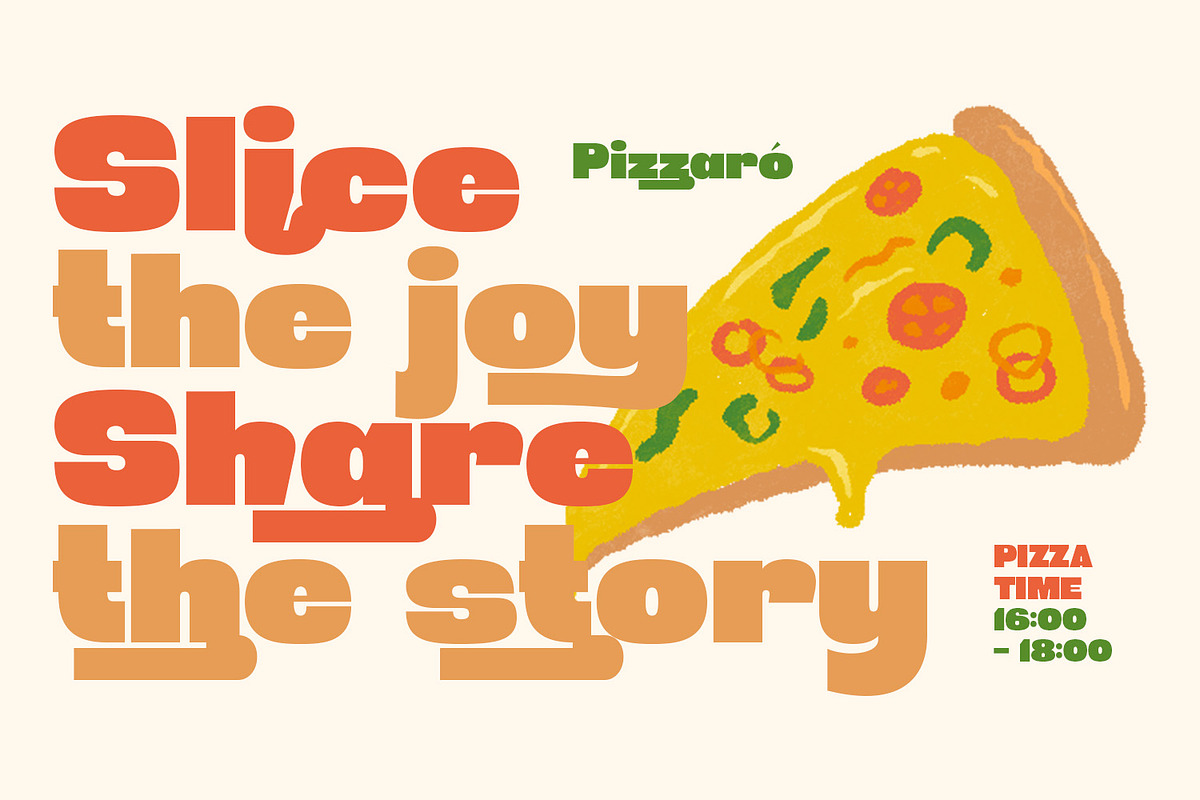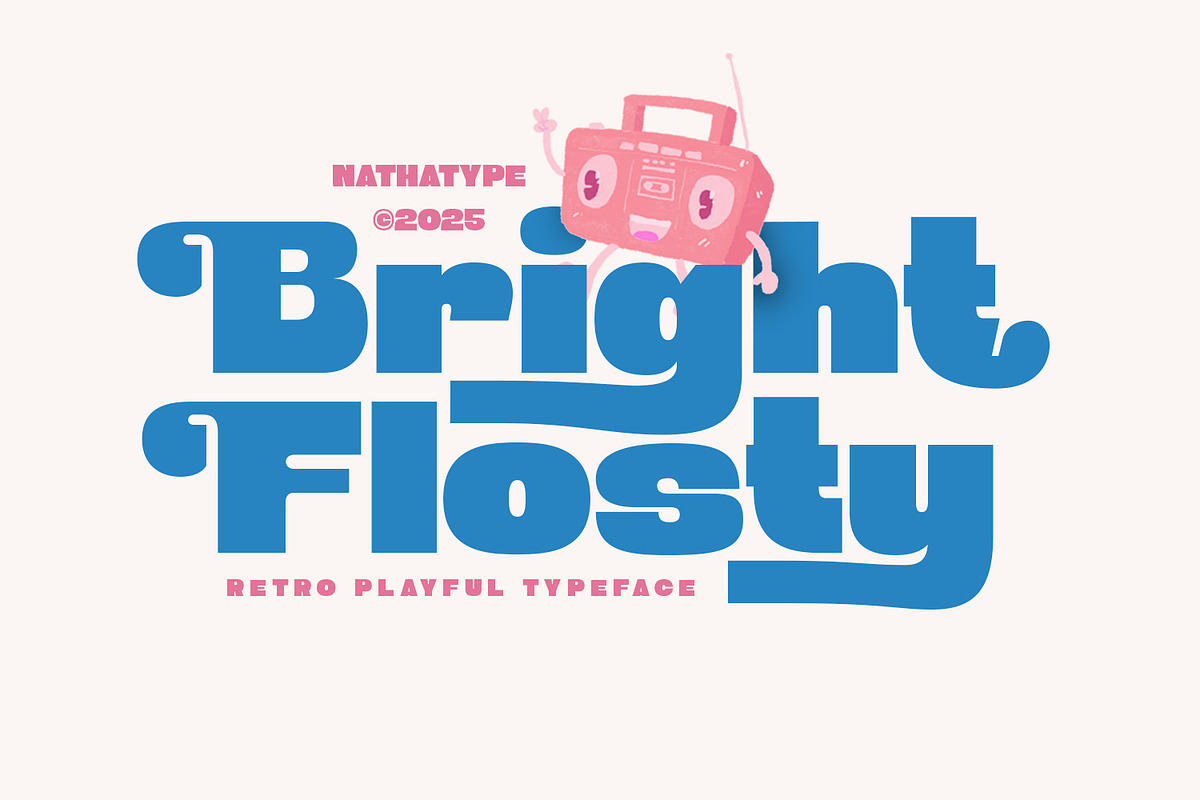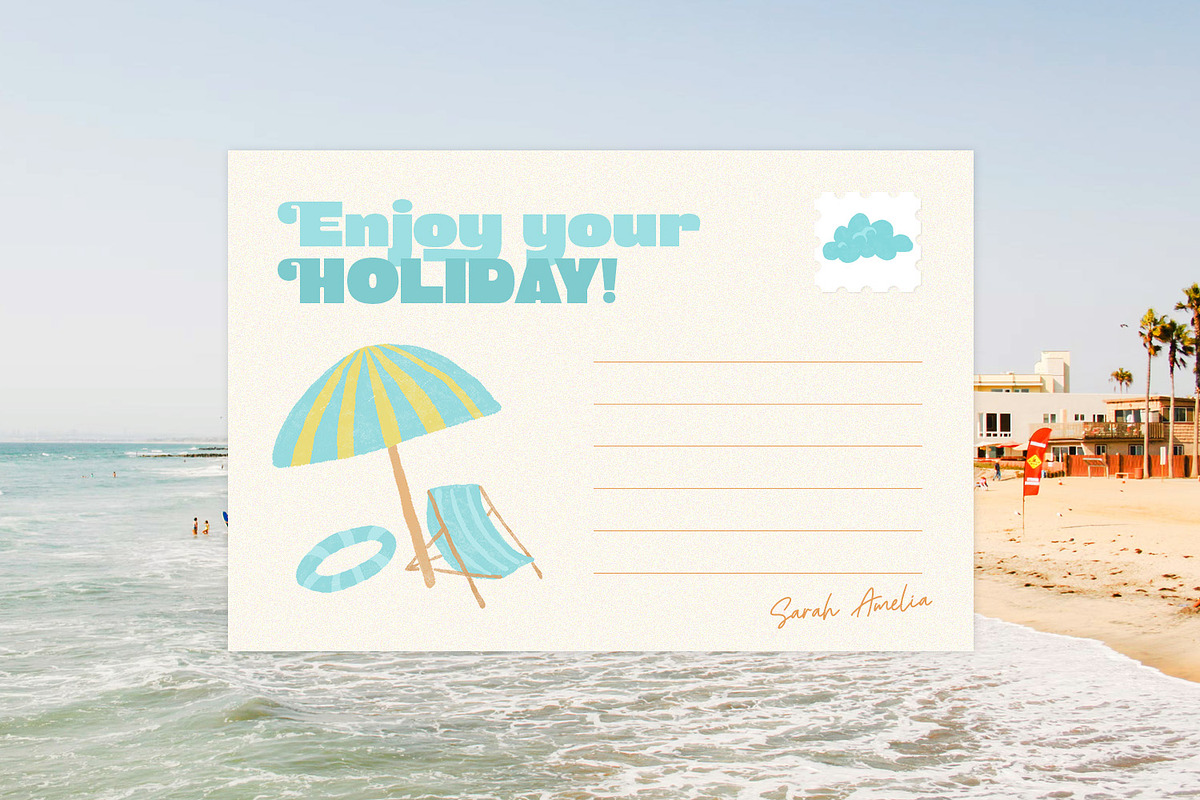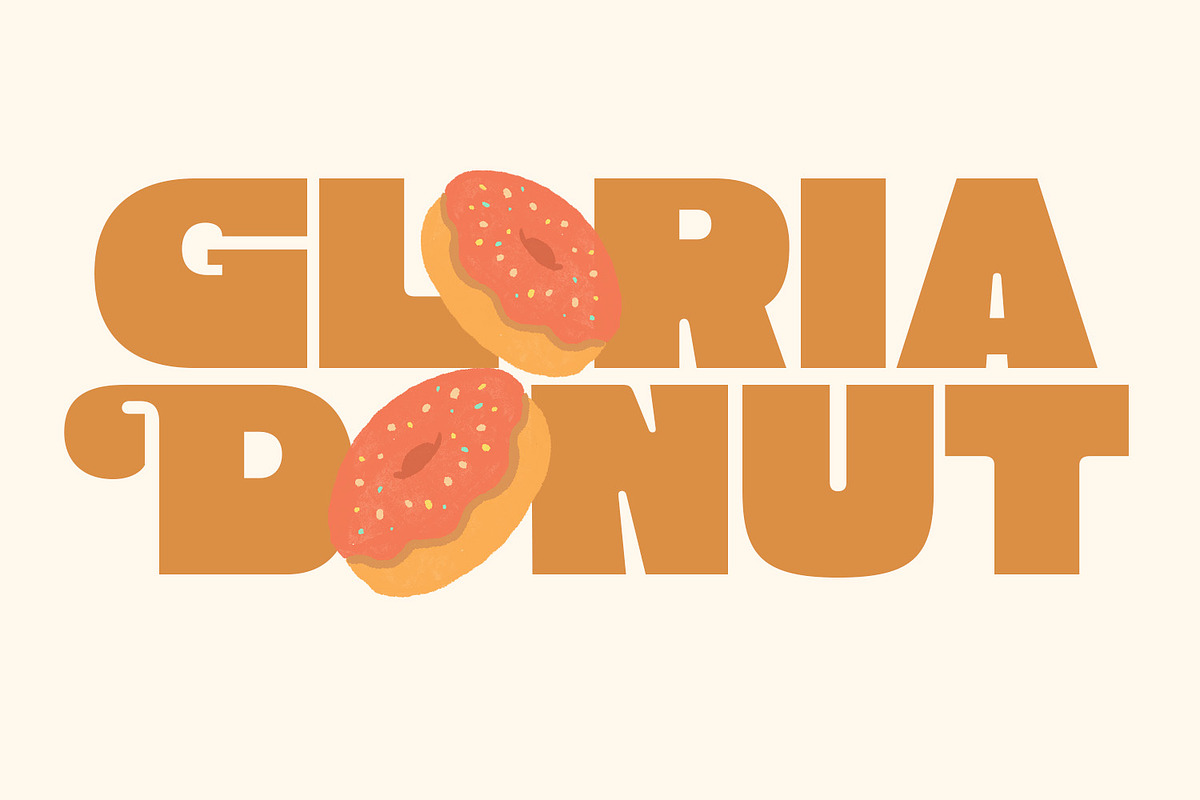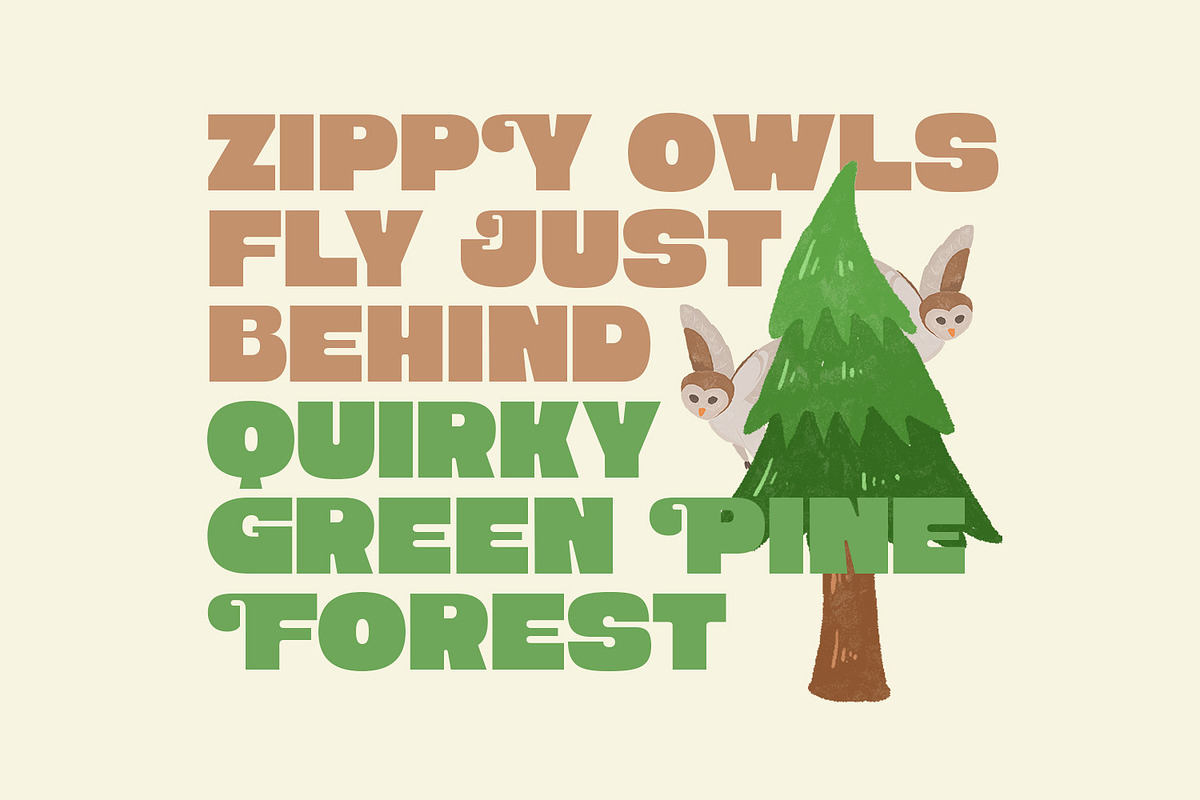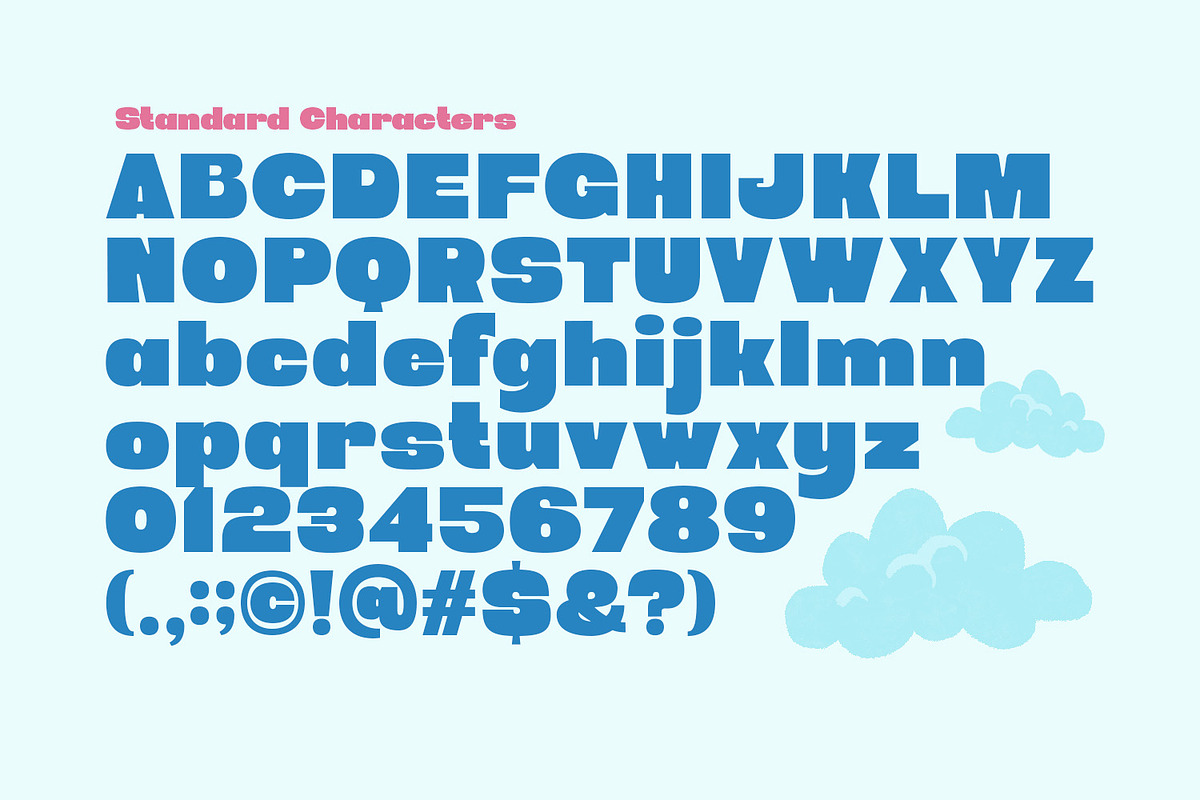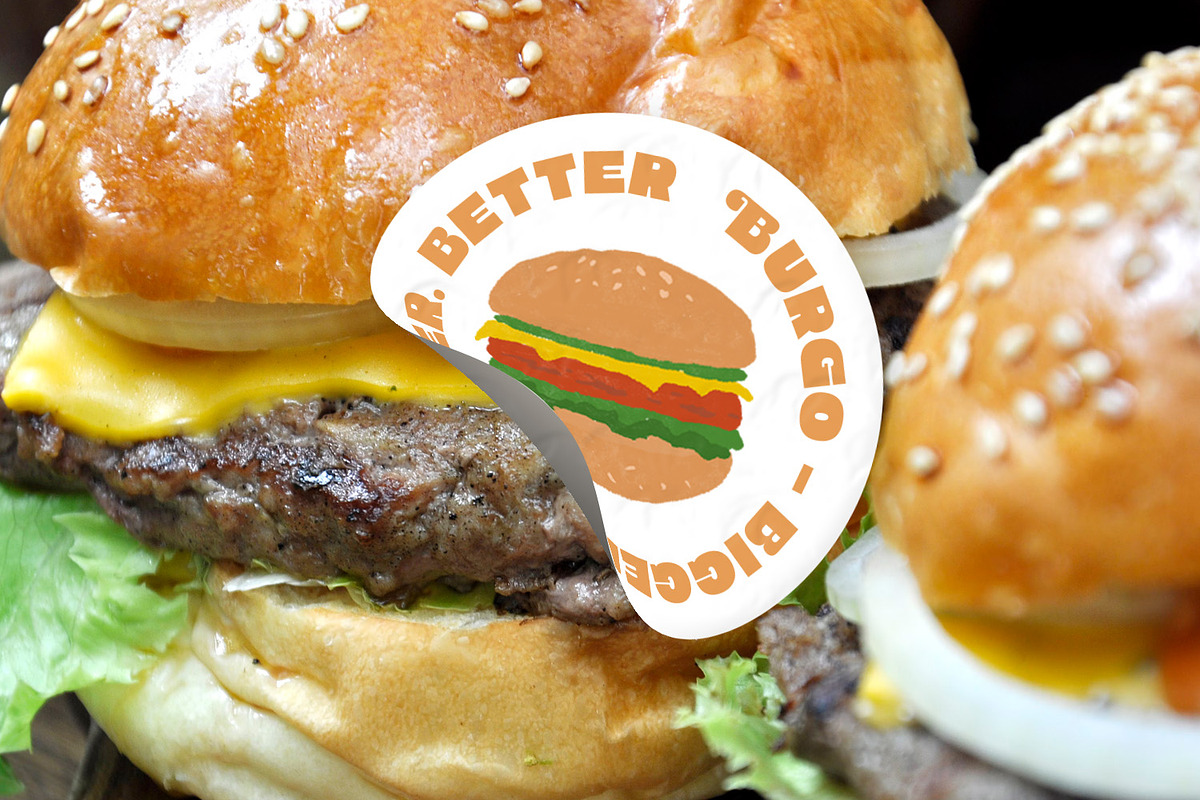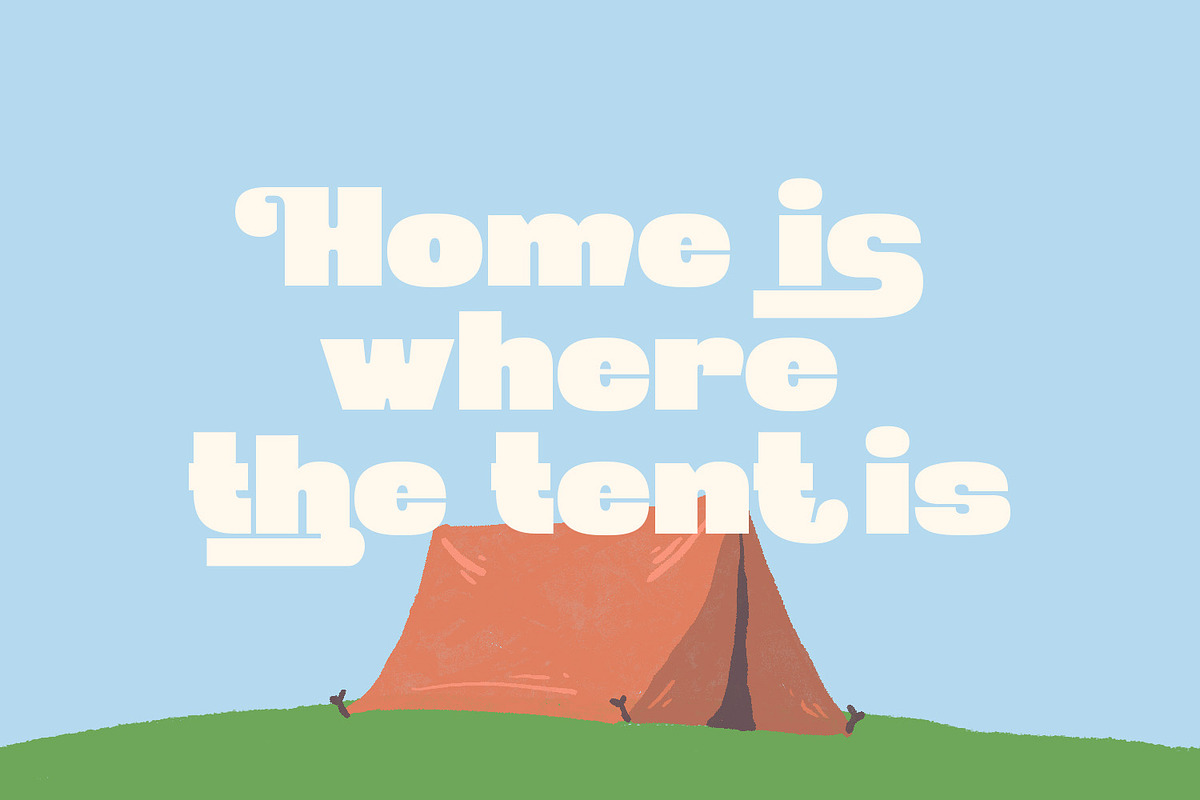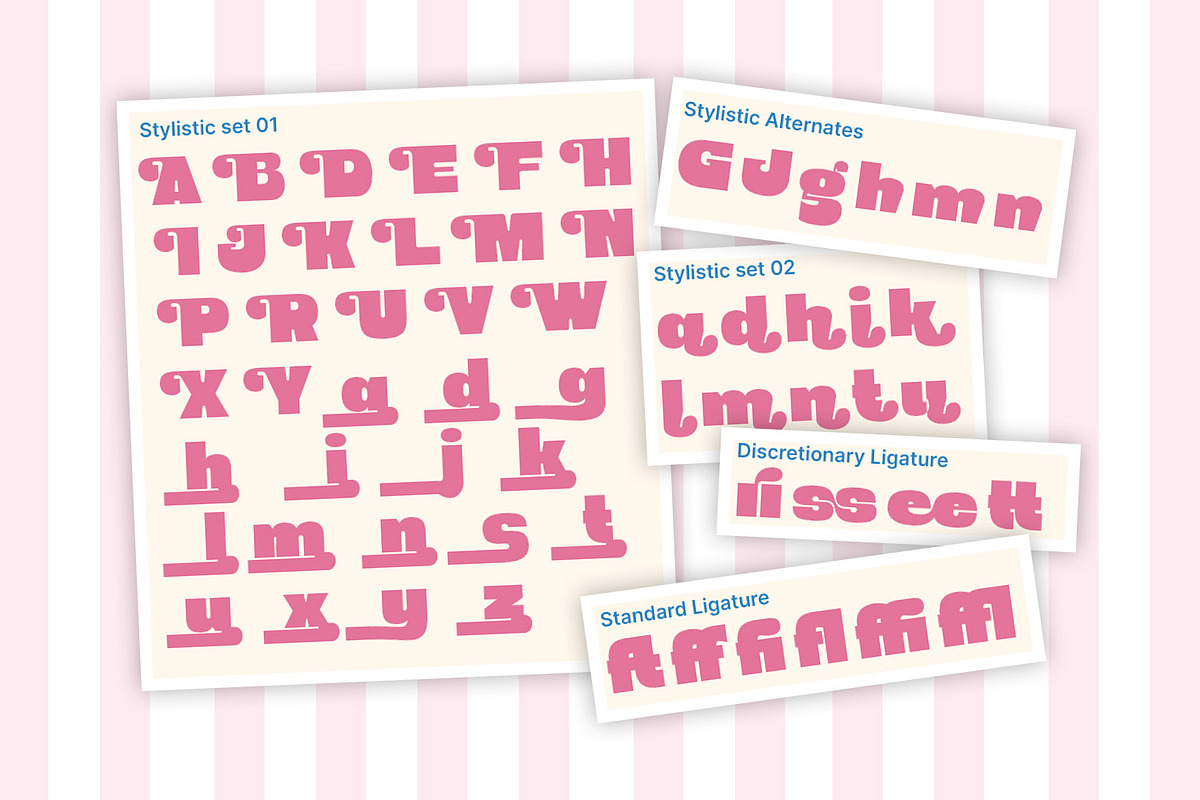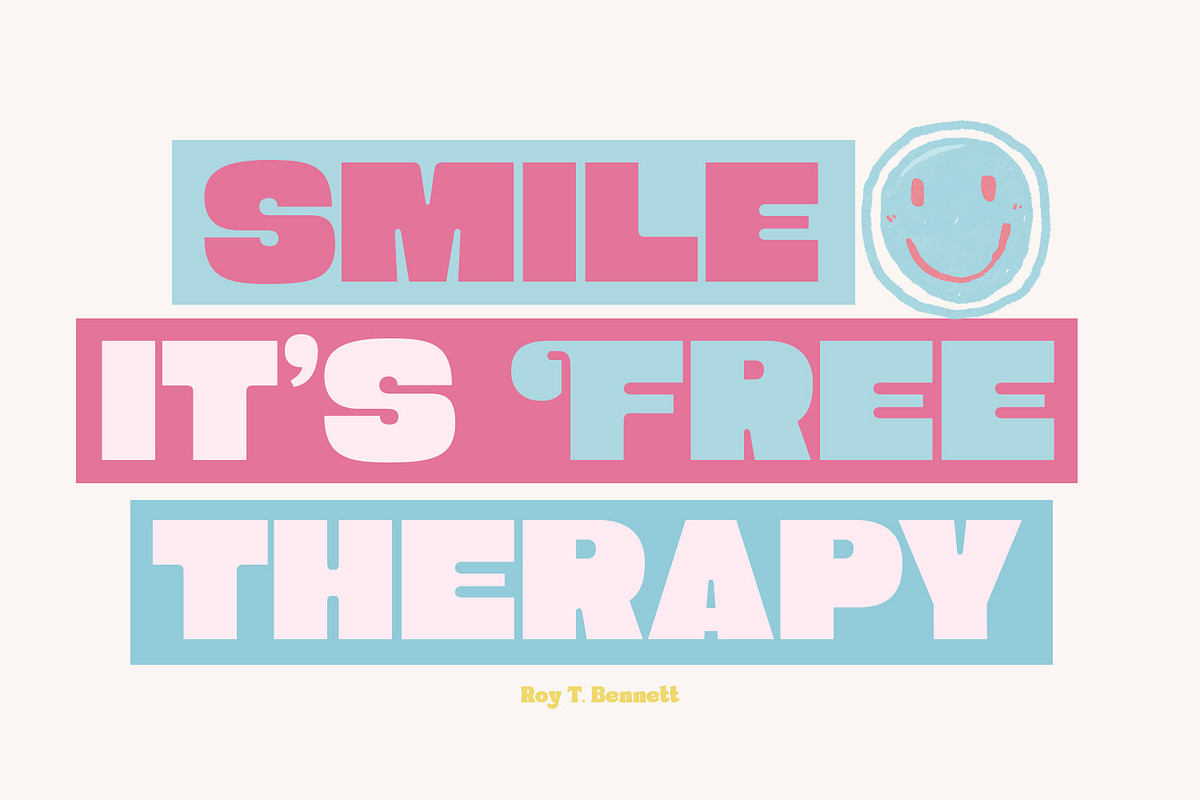
Bright Flosty
Bright Flosty is a retro display font that bursts with playful charm and bold personality. Its chunky letterforms and lively curves capture the fun-loving spirit of vintage design, making it perfect for projects that need a splash of nostalgia with a modern twist. Designed to grab attention, Bright Flosty shines in design that aims to feel both bold and cheerful. With its eye-catching style and upbeat energy, this font brings a touch of retro fun to any creative work. In addition, enjoy the features here.
- Stylistic Sets
Bright Flosty fits in branding, packaging, logos, posters, headlines, and many more designs. Find out more ways to use this font by taking a look at the font preview.